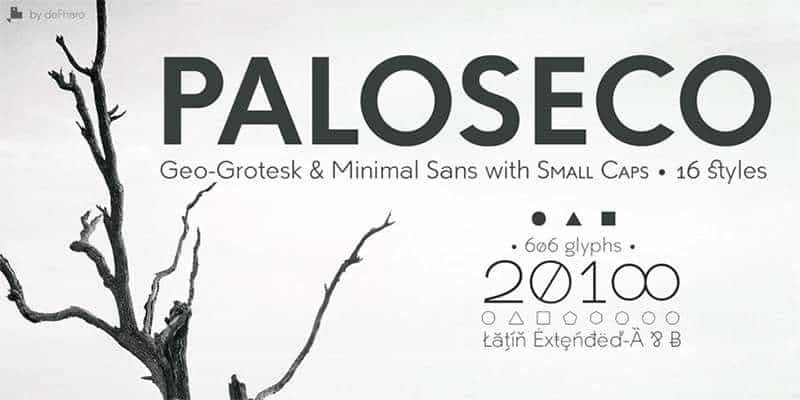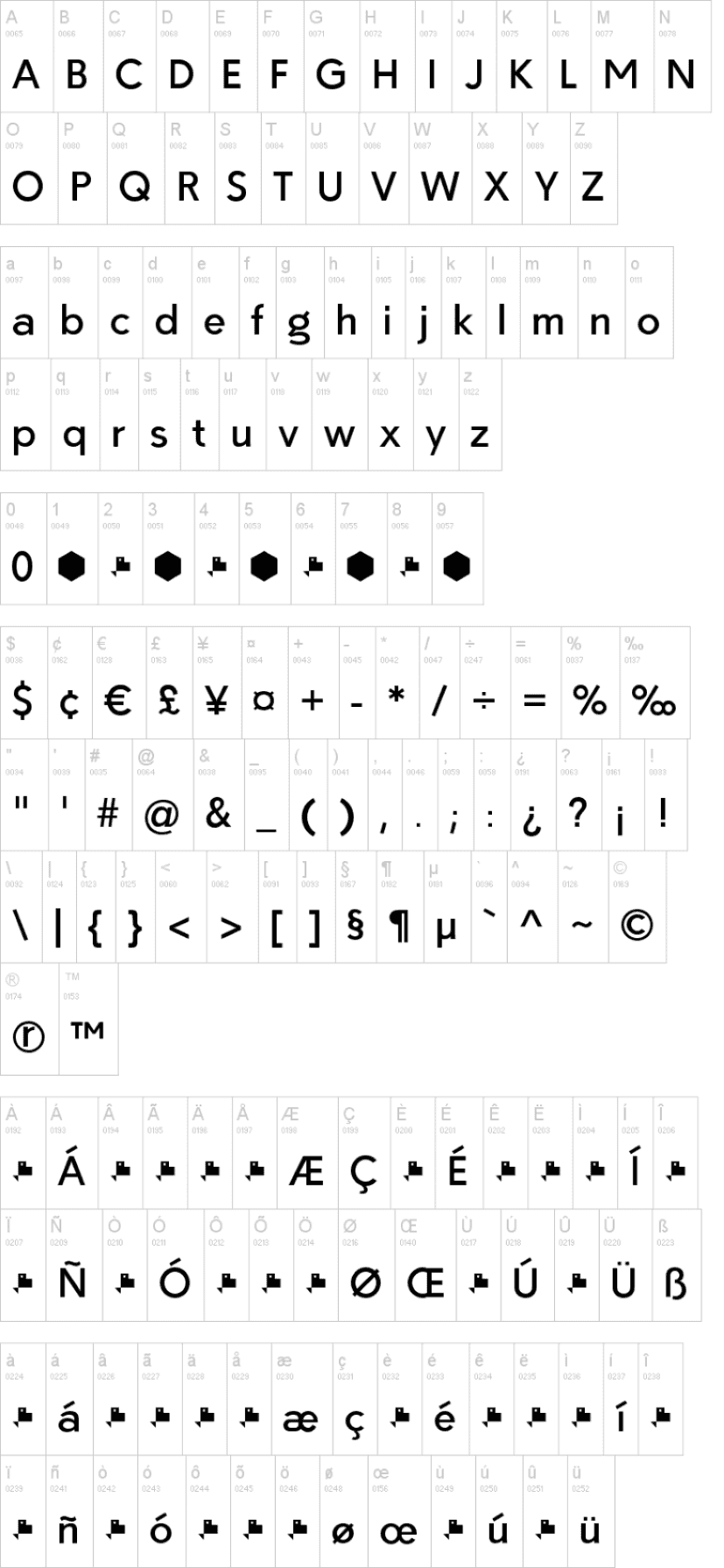
Paloseco is a Sans Serif typographic family of Geo-Grotesque style, consisting of 8 pesos and their italics, all of which include small capital letters and cryptocurrency symbols. That is a geometric, modernistic style of typography, with neo-grotesque inflections.